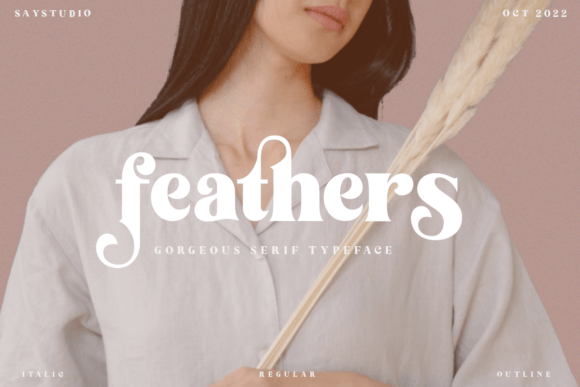
Prepare yourself to be amazed by Feathers Font, a serif font of remarkable artistry, exclusively available in our collection. Its graceful curves are a testament to the charm of bygone eras, drawing inspiration from the elegance of vintage typography and the allure of old records.
With Feathers Font, you'll unlock a treasure trove of creative possibilities. Its diverse range of stylistic alternatives and distinctive characters make it a versatile force to be reckoned with. Design logos that command attention, craft headlines that resonate, create posters that inspire, and design shirts that speak to your unique style. Let Feathers Font be your muse as you unleash your creativity and transform your artistic visions into reality.
But there's more to Feathers Font than meets the eye. It's been meticulously crafted with OpenType features, ensuring seamless integration with your design software. Experience the ease of accessing glyphs and swashes, adding an extra layer of sophistication to your projects without breaking a sweat.
Feathers Font is not just a font; it's an invitation to step into a realm of creative freedom, where boundaries are shattered, and imagination reigns supreme. It's the perfect companion for those who seek to leave an indelible mark on the world through their designs.